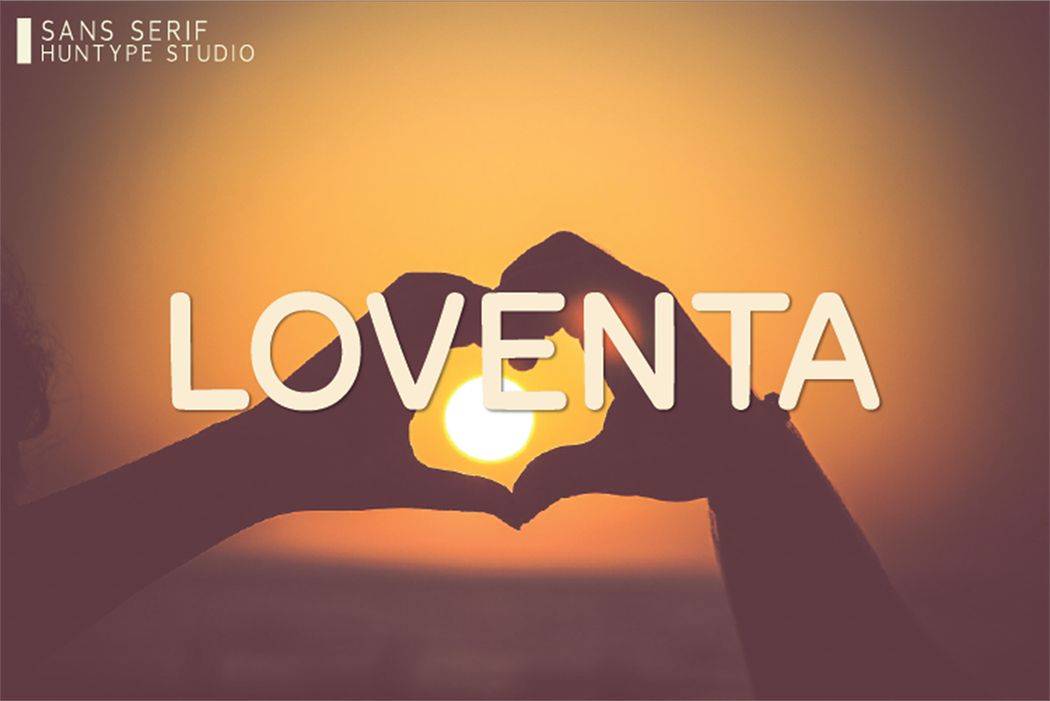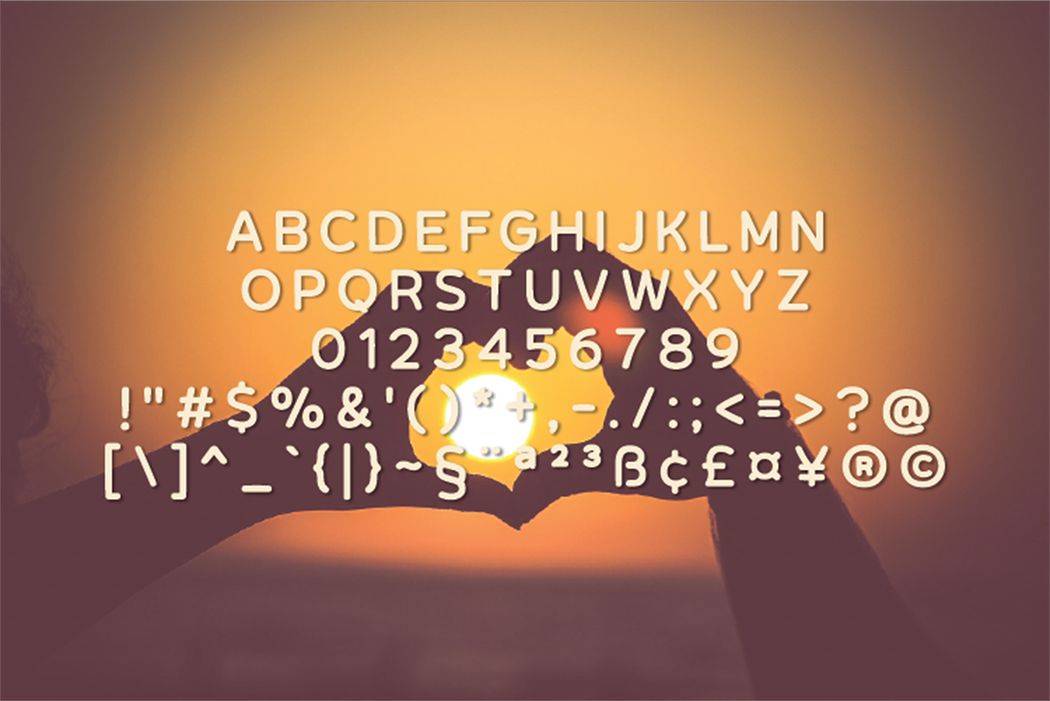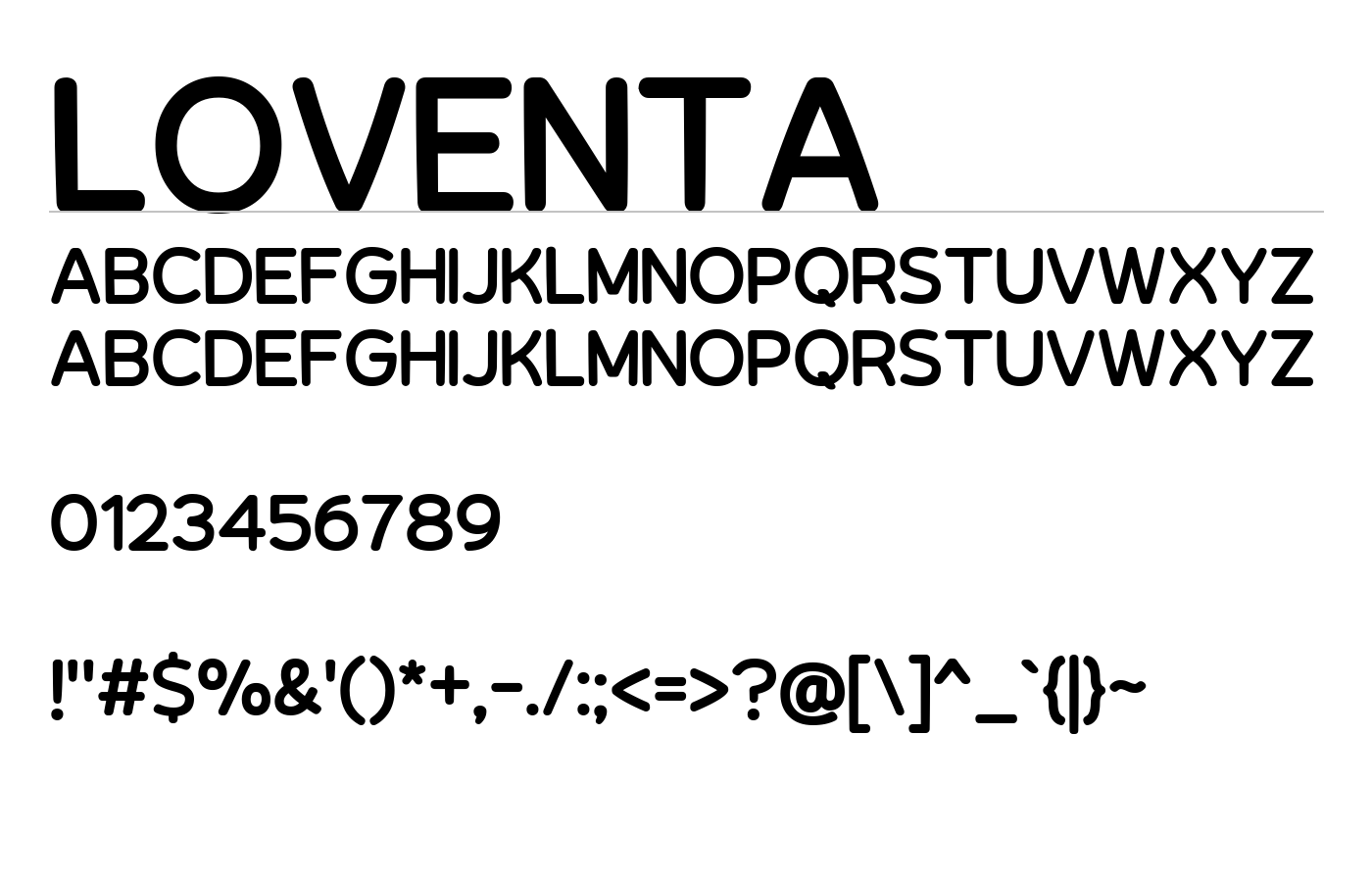
Loventa is a clean, rounded sans-serif font with a friendly and approachable feel, characterized by its smooth, even strokes and slightly condensed letterforms. Its simple yet modern design makes it highly legible and versatile, ideal for branding, editorial use, and digital interfaces where clarity and warmth are essential. This font works well for projects seeking a contemporary but inviting look, such as websites, logos, and casual communications.
Loventa Font
About Loventa Font